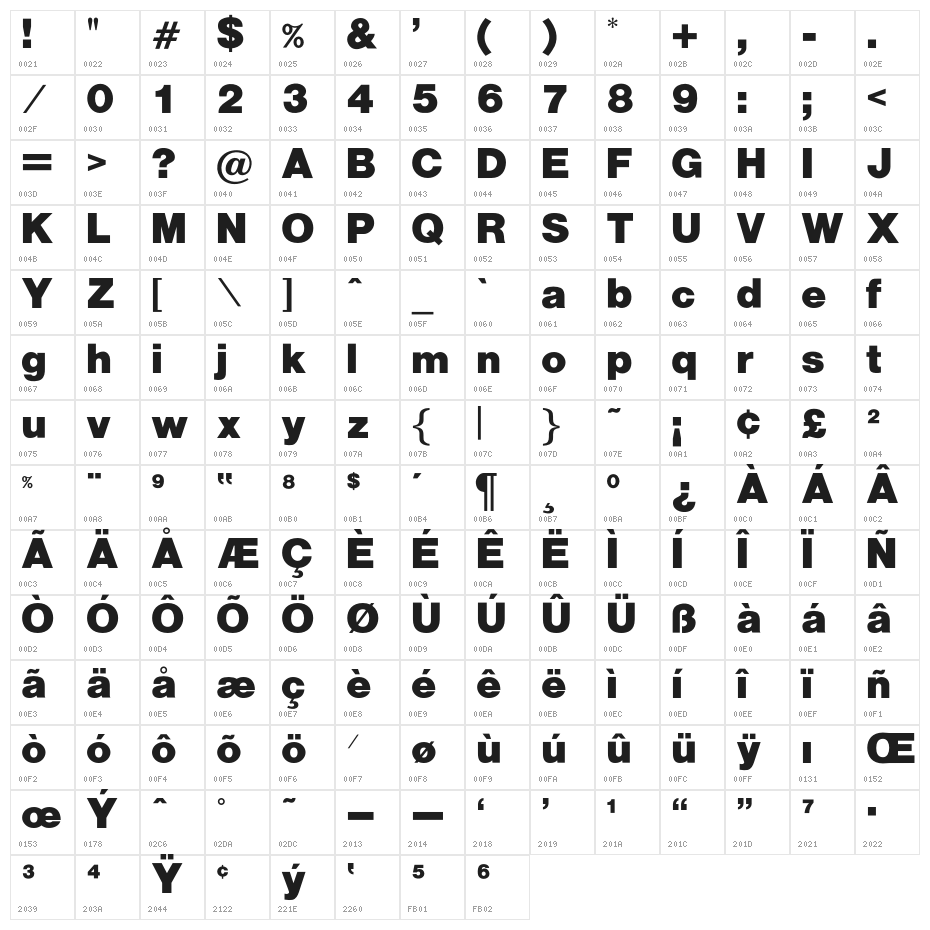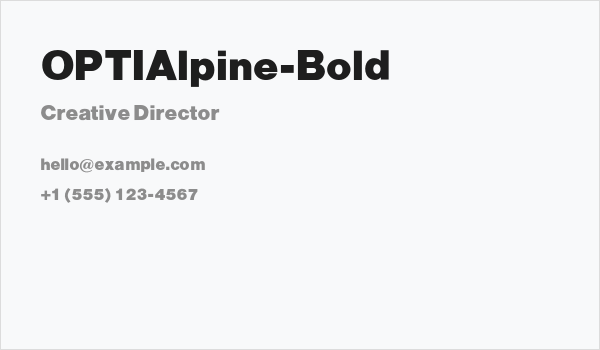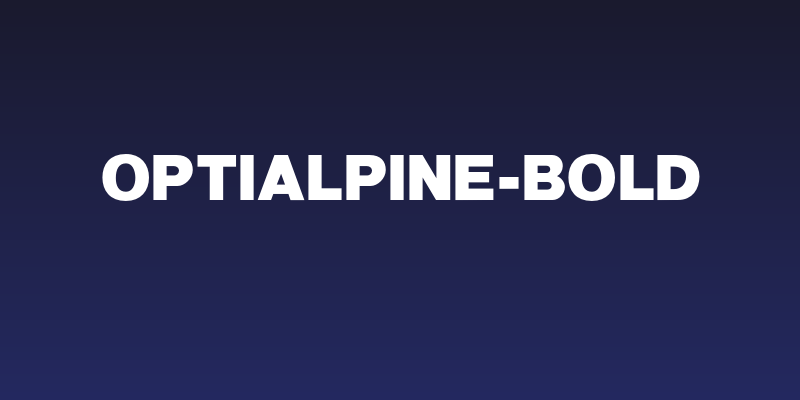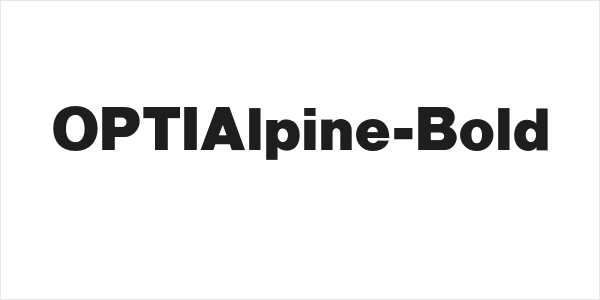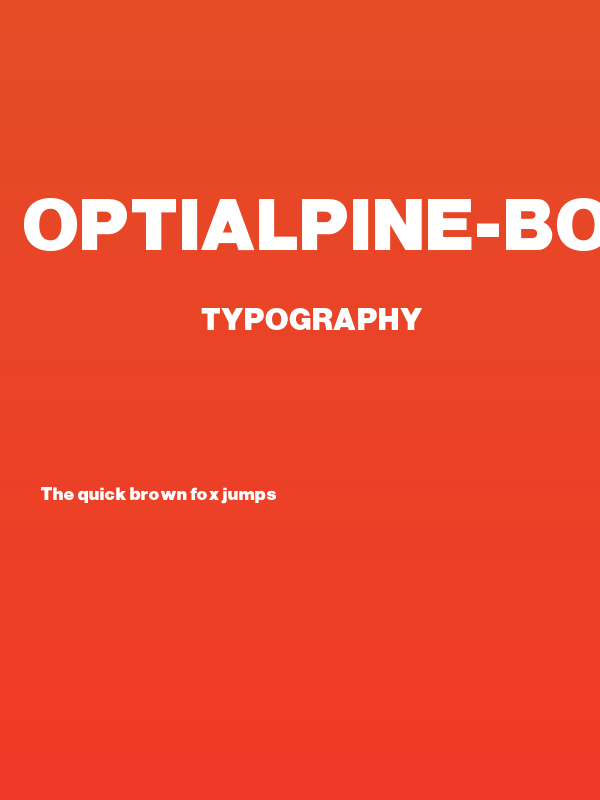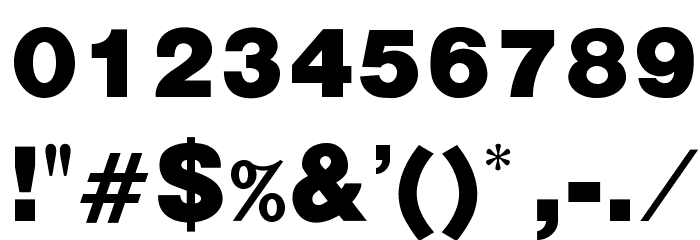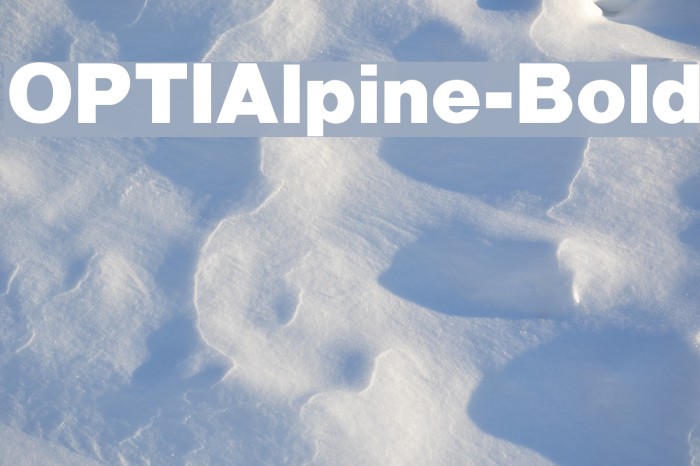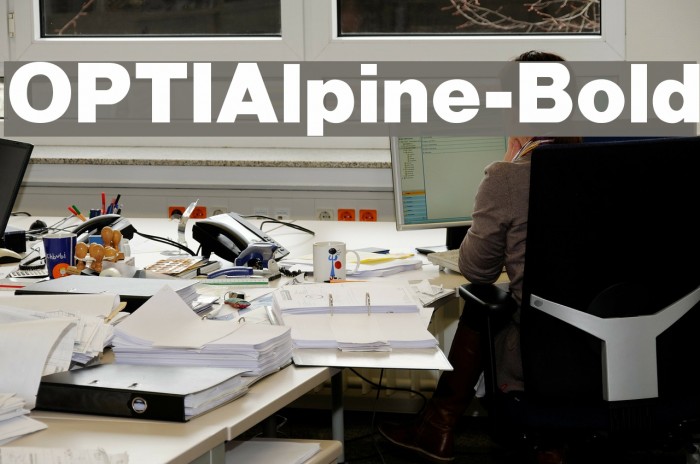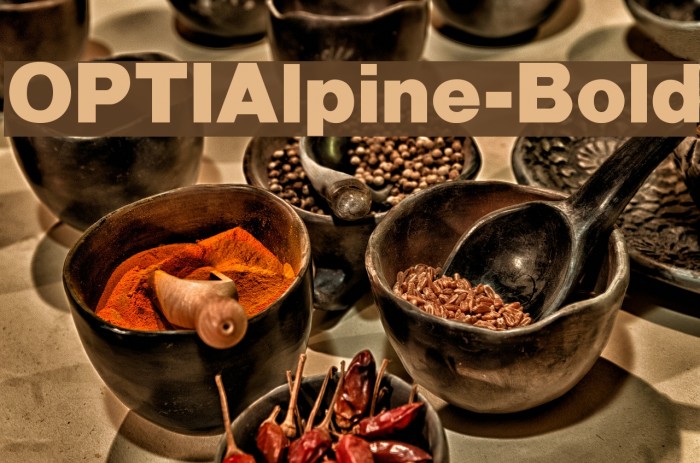
OPTIAlpine-Bold Font
OPTIAlpine-Bold Description
This bold typeface features strong, thick strokes that convey a sense of power and confidence. The characters are well-defined with a uniform weight, making them highly legible and impactful. The uppercase and lowercase letters maintain a consistent style, with rounded edges that soften the overall appearance. The numerals are equally bold, ensuring they stand out in any context. Special characters are included, providing versatility for various design needs. This font is ideal for making a statement, whether in print or digital media.
| Proposed Projects | Ideal for headlines, posters, branding, and advertising where a strong visual impact is needed. |